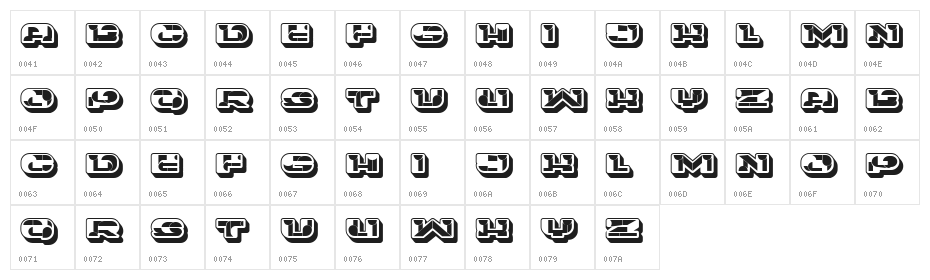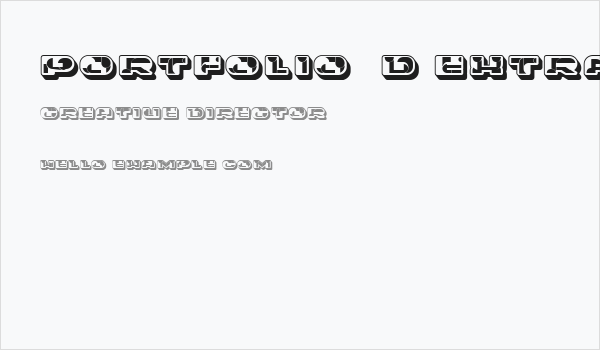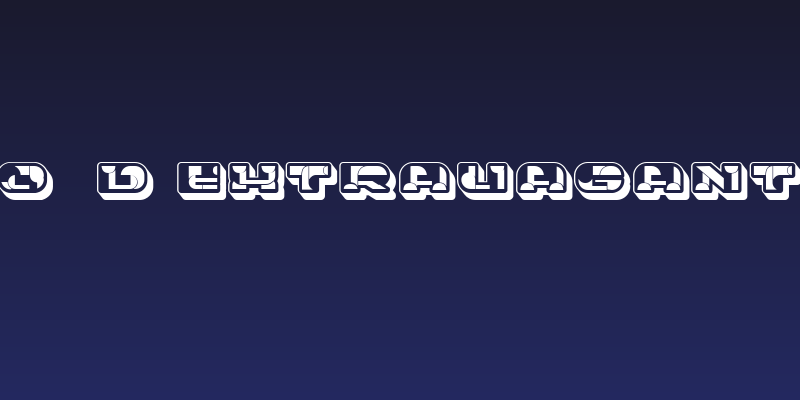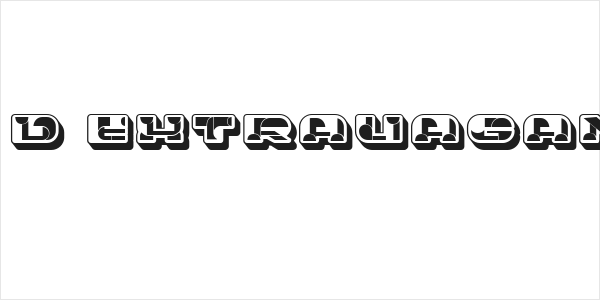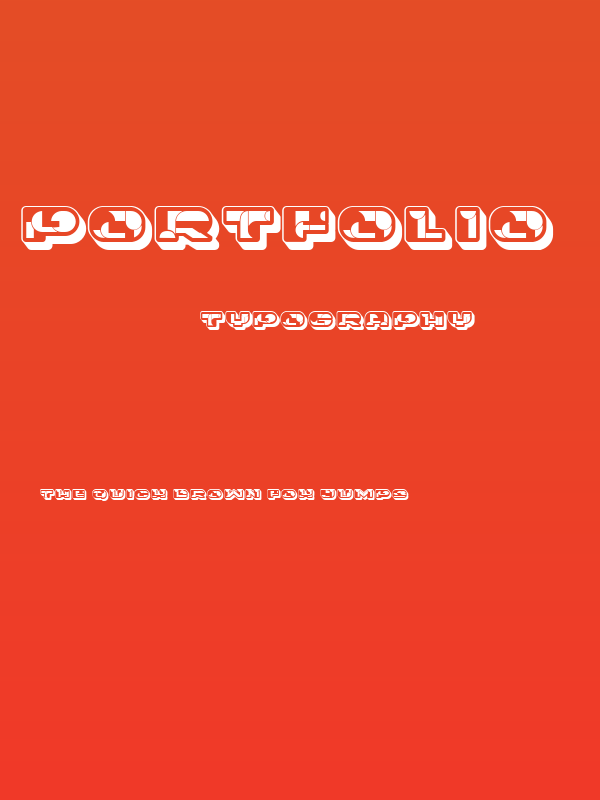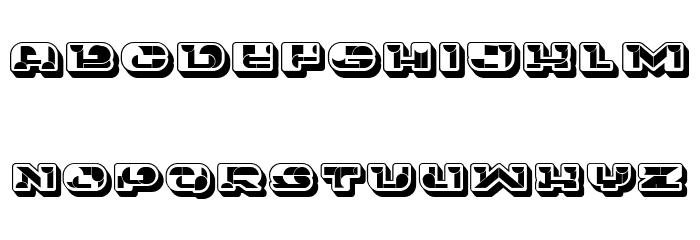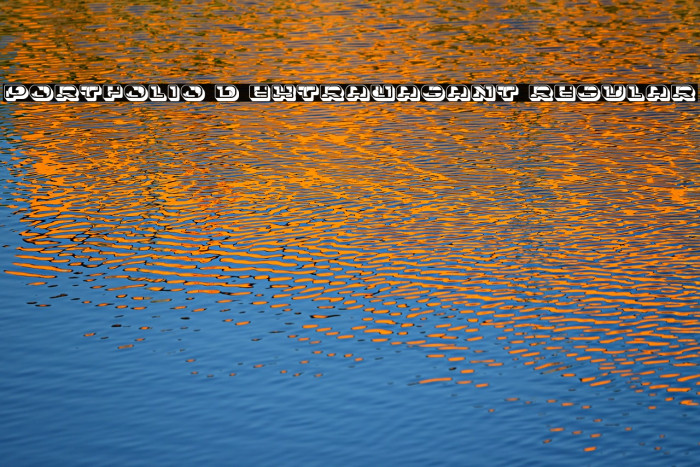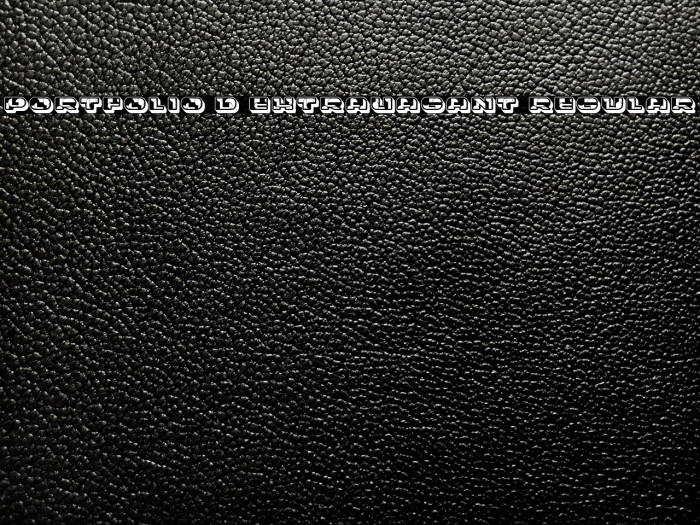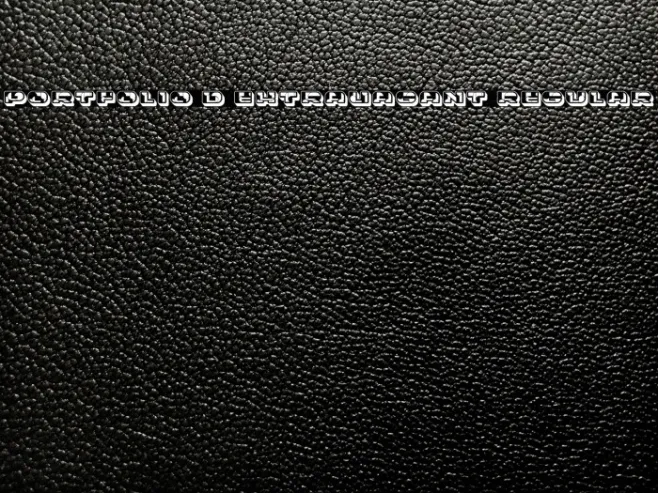
Portfolio 3D Extravagant Regular Font
Portfolio 3D Extravagant Regular Description
This font features a bold, three-dimensional design with a strong, impactful presence. Each character is crafted with a shadow effect that gives it a sense of depth and volume, making it stand out prominently. The geometric shapes and clean lines contribute to a modern and futuristic aesthetic. The uppercase letters are particularly striking, with a consistent thickness and a blocky, robust appearance. The font's unique style is both eye-catching and versatile, suitable for a variety of creative applications.
| Proposed Projects | Ideal for poster designs, video game graphics, branding, and any project requiring a bold, futuristic look. |